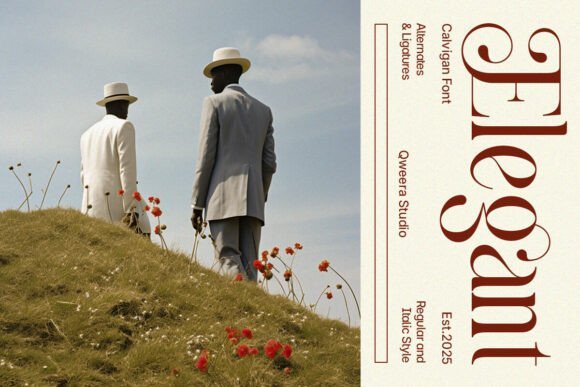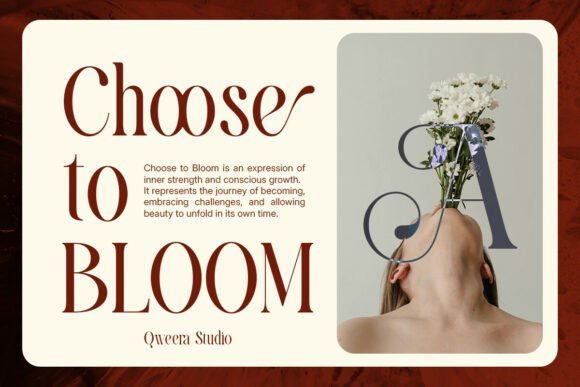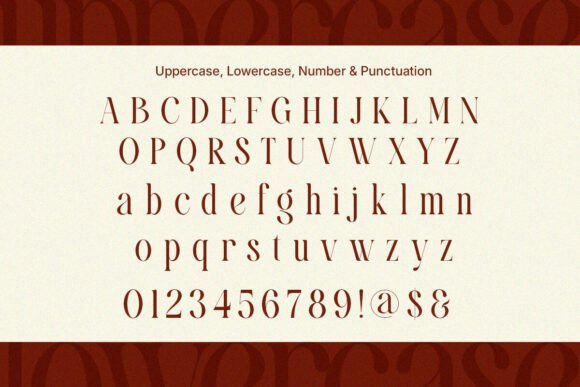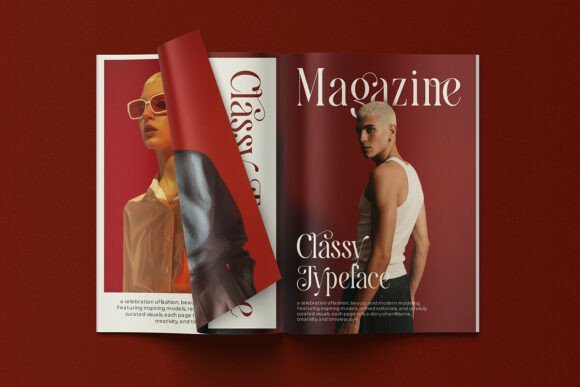
Calvigan Font
Calvigan Font is a modern elegant serif typeface built for luxury branding and feminine visual identity. Its graceful curves, premium proportions, and refined details make it ideal for logos, invitations, wedding stationery, packaging, and beauty brands. This serif font blends timeless romance with modern elegance for premium creative projects.